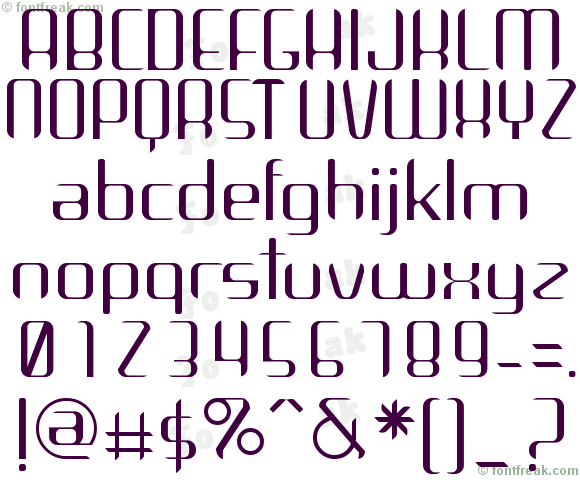
About Arbeka
Arbeka by Antaviana Typeface is a striking display font that perfectly balances boldness and elegance. This freeware typeface features a sans-serif style, characterized by its clean lines and geometric shapes. The stroke weight is consistent, providing a modern look that is both approachable and sophisticated. With its slightly condensed letterforms, Arbeka ensures excellent readability, making it suitable for various applications. The font offers a range of styles, including bold, italic, light italic, and light, allowing for versatility in design projects.
Visually, Arbeka stands out due to its minimalistic aesthetic, with subtle curves that add a touch of personality without overwhelming the viewer. The spacing between letters is well-considered, ensuring clarity while maintaining an airy feel. This makes it ideal for use cases such as wedding invitations, where elegance is paramount, as well as for movie posters that require attention-grabbing headlines. Additionally, Arbeka can enhance restaurant menus by providing an inviting yet professional appearance, making it easier for customers to navigate offerings. Graphic designers and content creators will find this font particularly appealing, as it allows for creative freedom across various mediums.
What sets Arbeka apart is its unique blend of boldness and sophistication, making it a versatile choice for both professional and personal projects. The font’s ability to adapt to different contexts without losing its charm makes it a valuable addition to any designer’s toolkit. For those looking to elevate their projects, the Arbeka font free download is an opportunity not to be missed, providing both aesthetic appeal and practical functionality. Embrace the potential of Arbeka and watch your designs come to life with its distinct character.